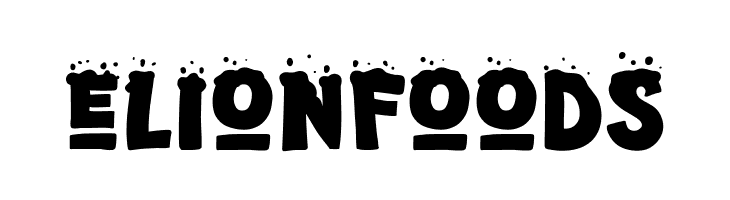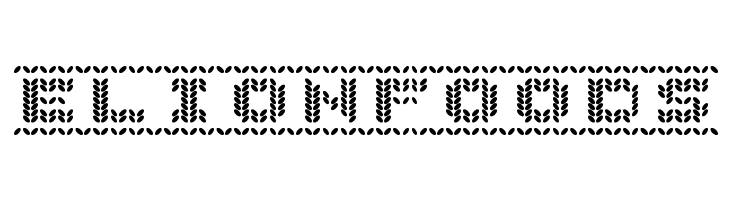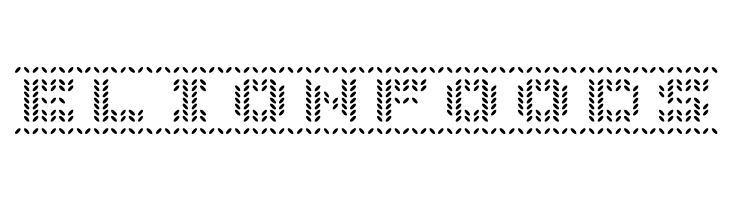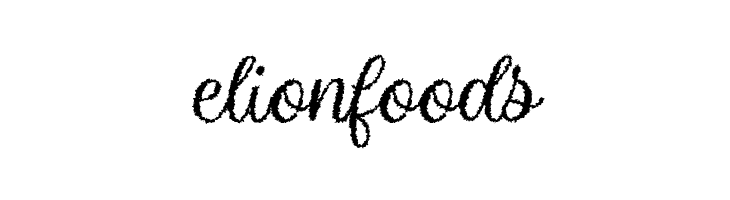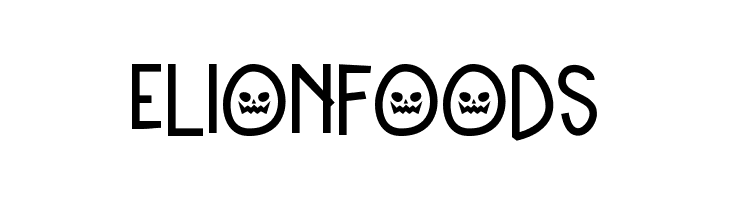
A playful, bold font with snow-like dots, perfect for festive designs.
A bold, festive font with a snowy, wintry theme.
A bold, decorative font with snow-capped letters for a festive look.
A bold, playful font with thick, rounded strokes and a festive feel.
A playful, knitted-style font perfect for festive and cozy designs.
A decorative font with a knitted pattern, perfect for festive and cozy designs.
A whimsical, decorative font with curly embellishments and a festive appearance.
A playful, hand-drawn font with a whimsical and festive touch.
A bold, decorative font with a snowflake pattern, perfect for festive themes.
A playful, bold font with a hand-drawn, festive style.